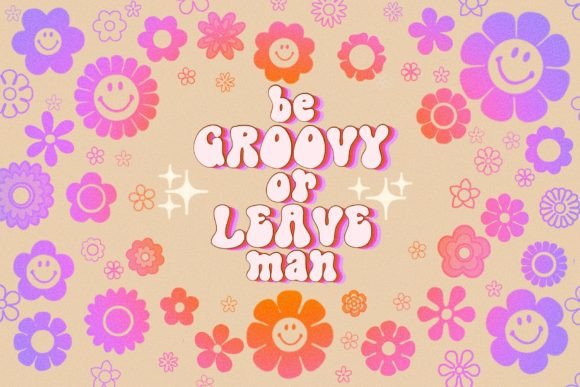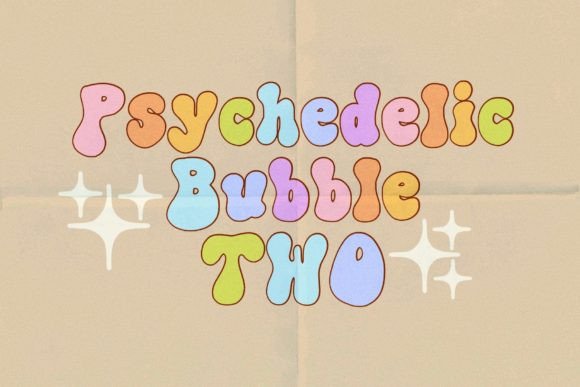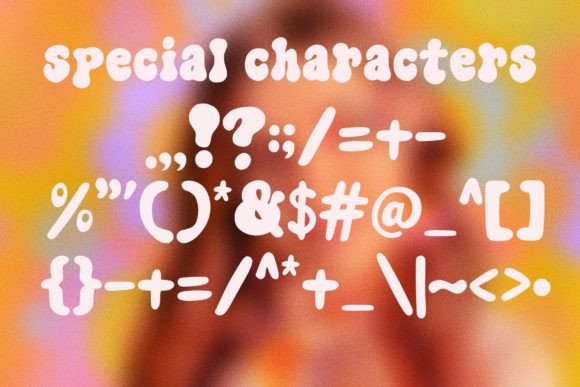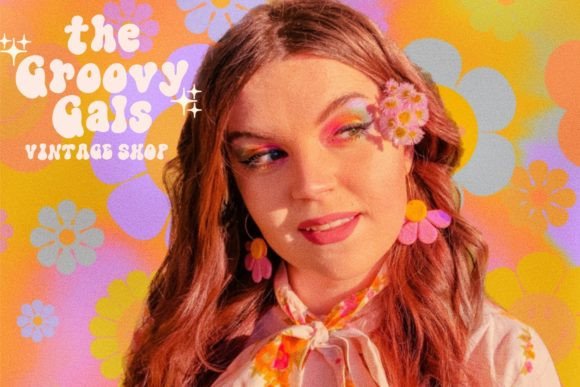
Introduction to Psychedelic Bubble Two Font
Psychedelic Bubble Two is a retro, stylish, and hippie sans-serif font that brings a touch of nostalgia to any design project.
With bold lines and playful curves, this font captures the essence of the 60s and 70s counterculture movement Perfect for creating vintage logos, posters, and branding materials that require a fun and carefree look.